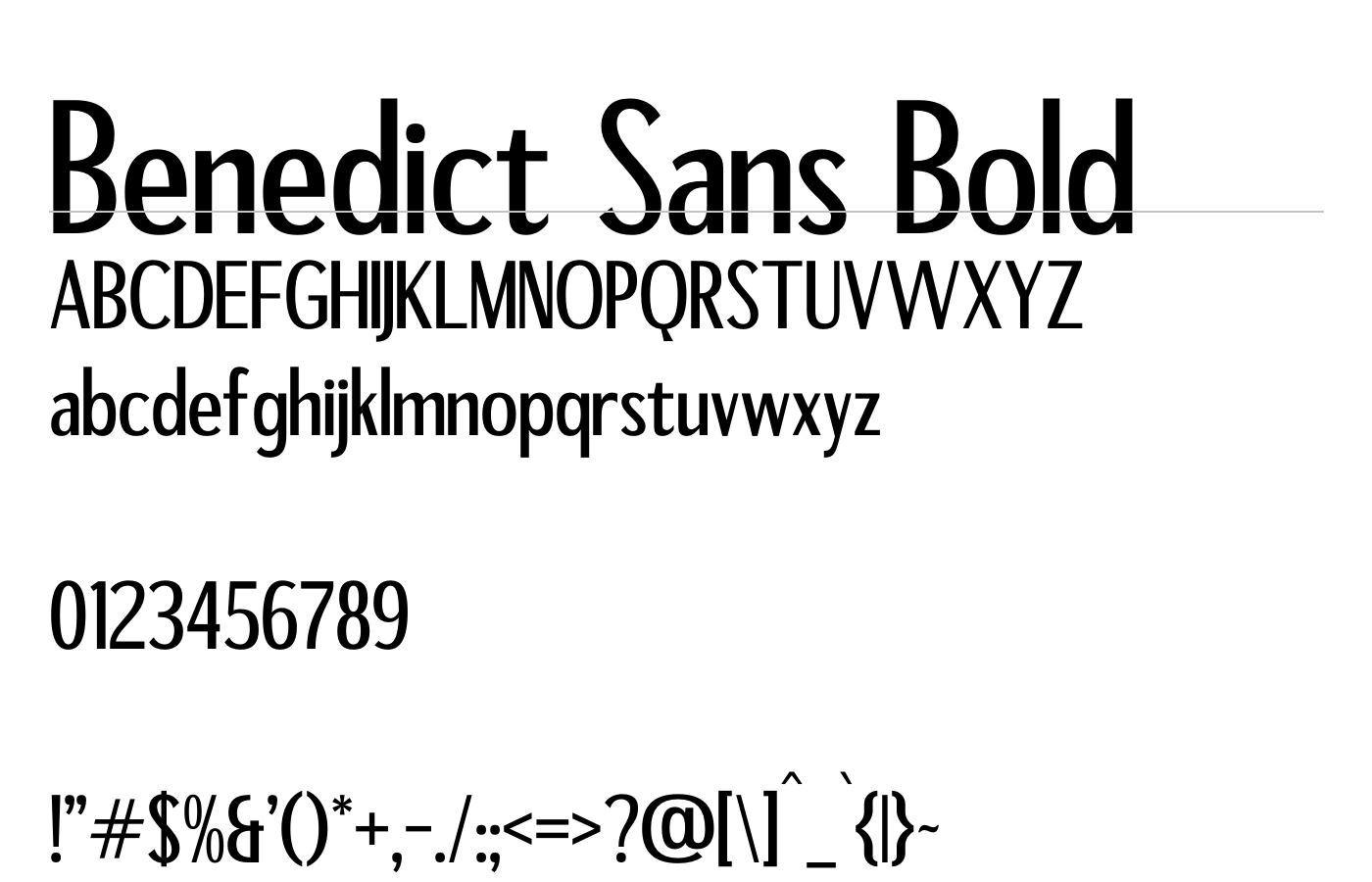
Benedict Sans Regular is a tall, narrow sans serif font with a clean and modern look, featuring high contrast between thick and thin strokes that add elegance without sacrificing legibility. Its slightly condensed width and distinctive letterforms give it a sophisticated and contemporary style, making it well-suited for headlines, branding, and editorial design where a refined yet commanding presence is desired. This font works best in fashion, luxury, and high-end editorial contexts, offering a sleek and stylish aesthetic.
Benedict Sans Regular Font
About Benedict Sans Regular Font